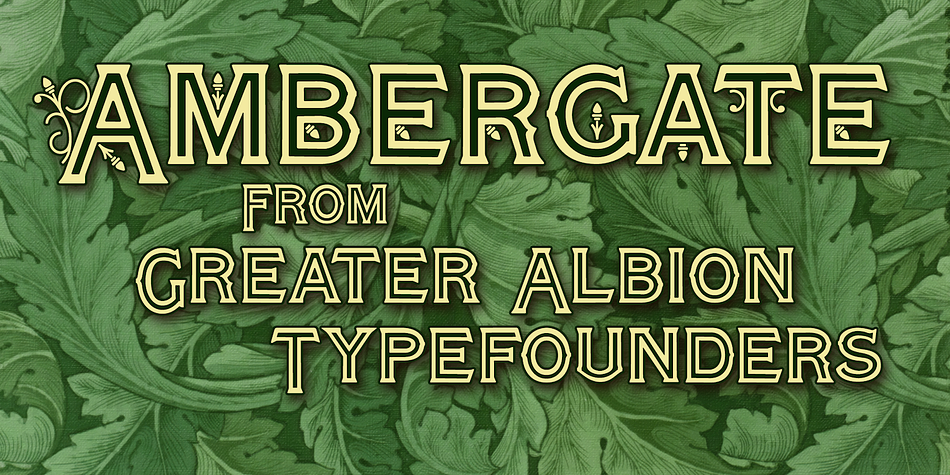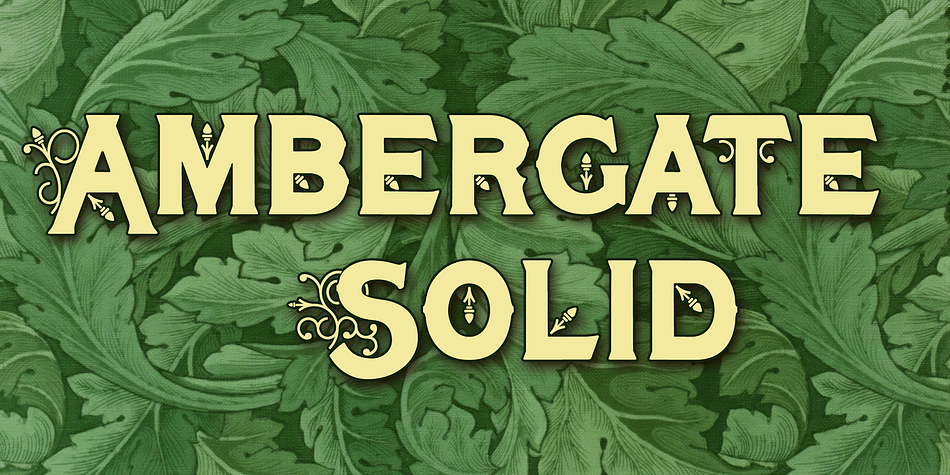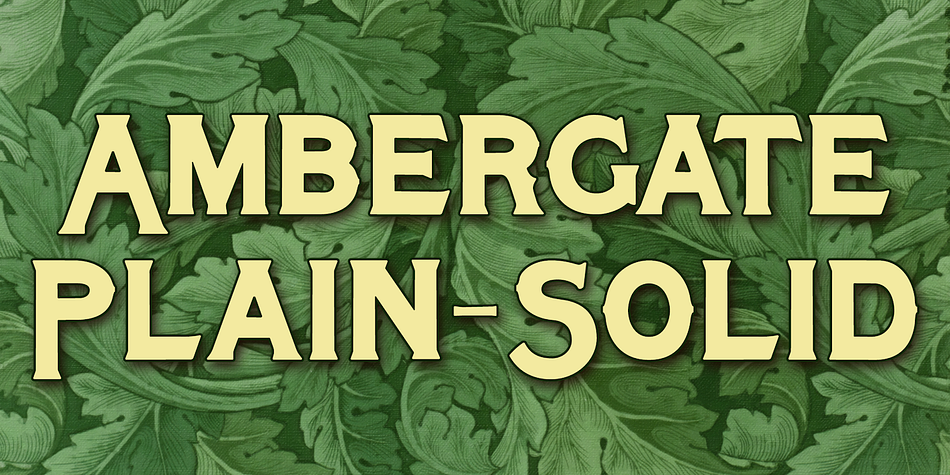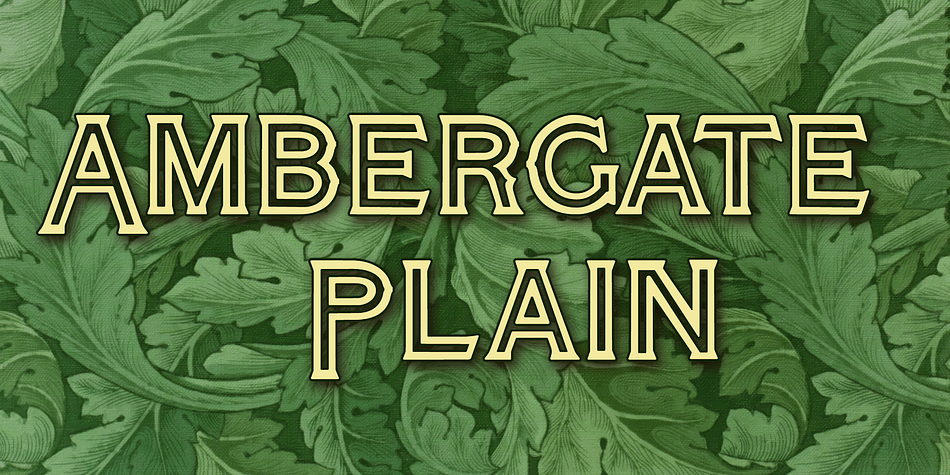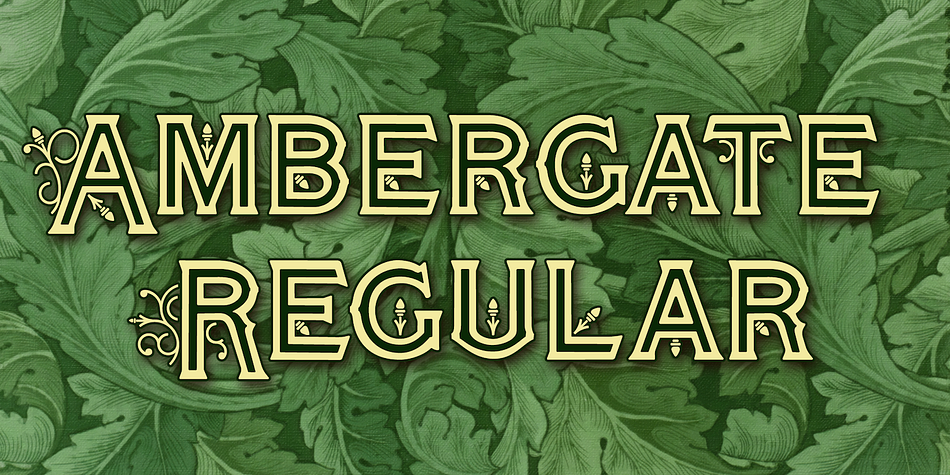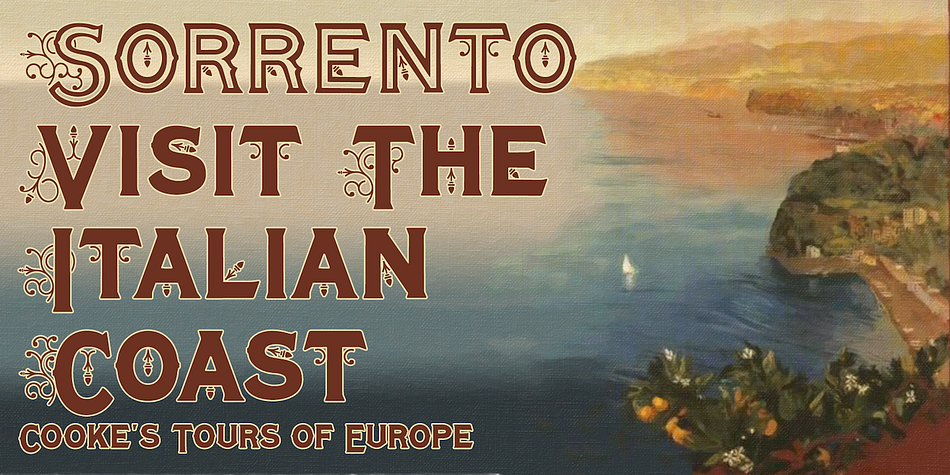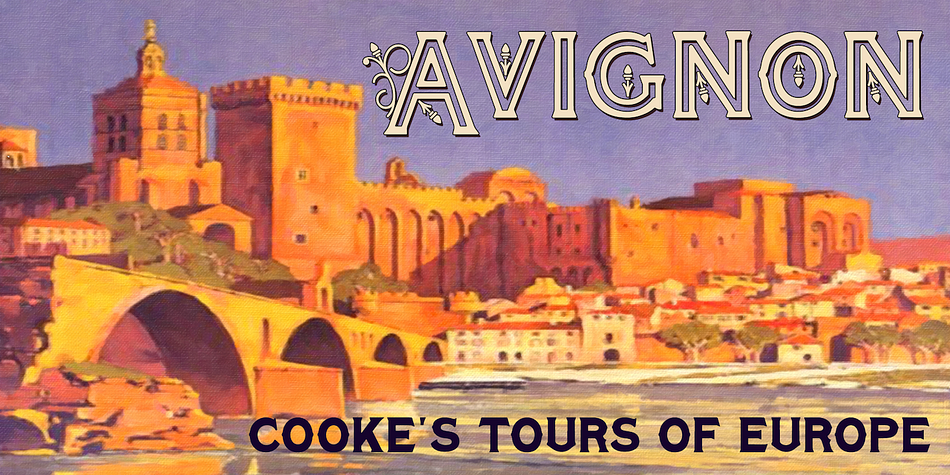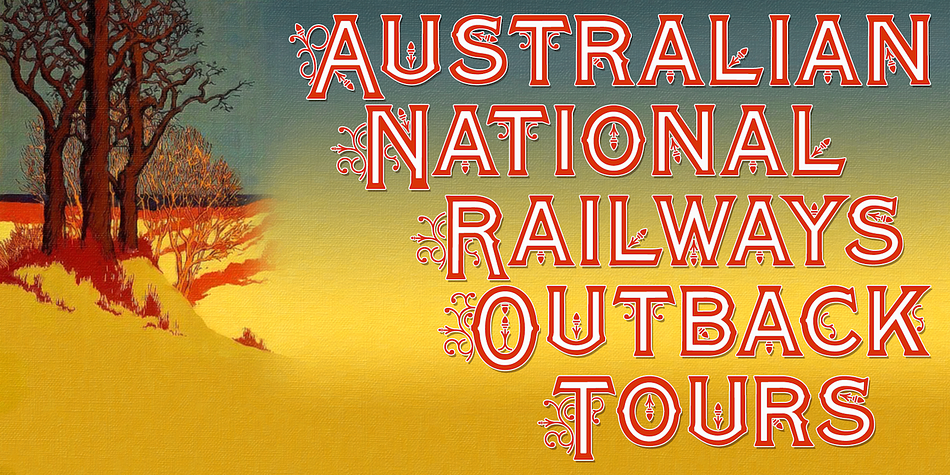
Ambergate is a monograms and display serif font family. This typeface has four styles and was published by Greater Albion Typefounders.
Ambergate is a new typeface family redolent of the late 19th and early 20th centuries. It’s a display family of four small capitals roman faces, incised and elaborated with filigree scrollwork. The four typefaces which comprise the family recapture the elegance of traditional flourished sign writing and make and provide ideal lettering for period inspired design work such as posters, signage and book covers.